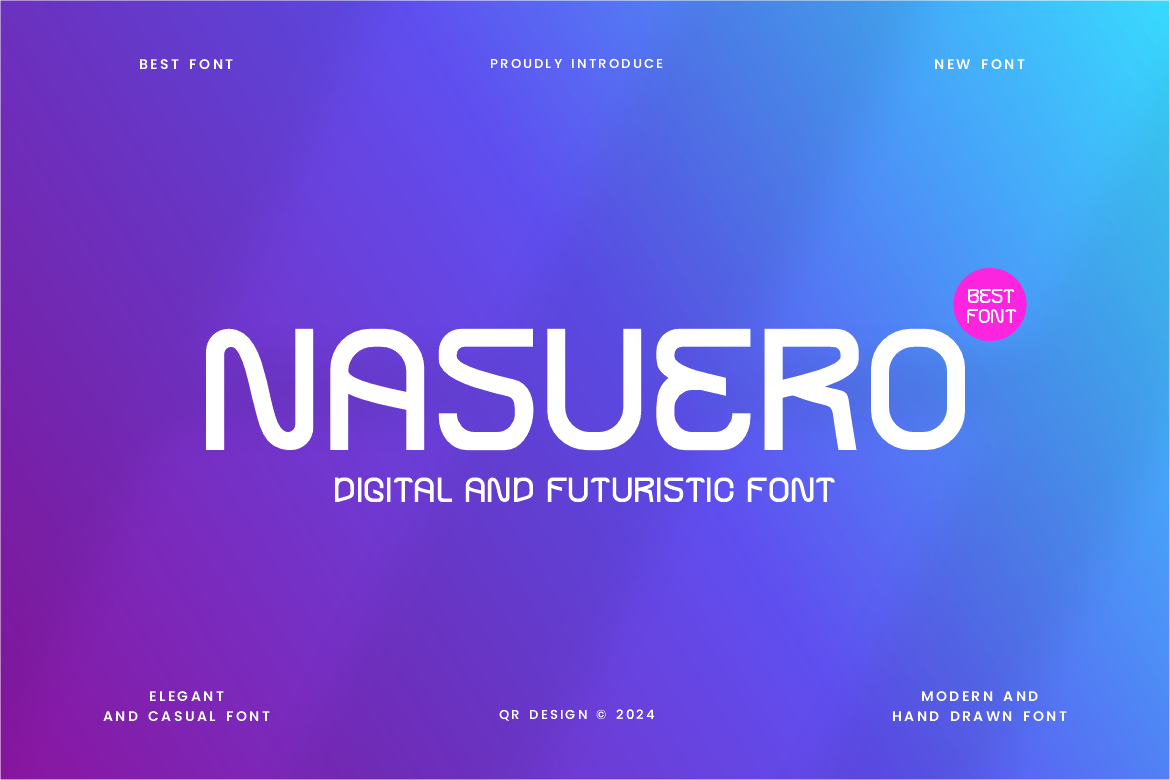
Nasuero - Digital & Futuristic Font
Nasuero Font is a bold and authentic display font. The font is suitable for any branding project like poster, logo, sport, and many more. Outstanding in a wide range of contexts.